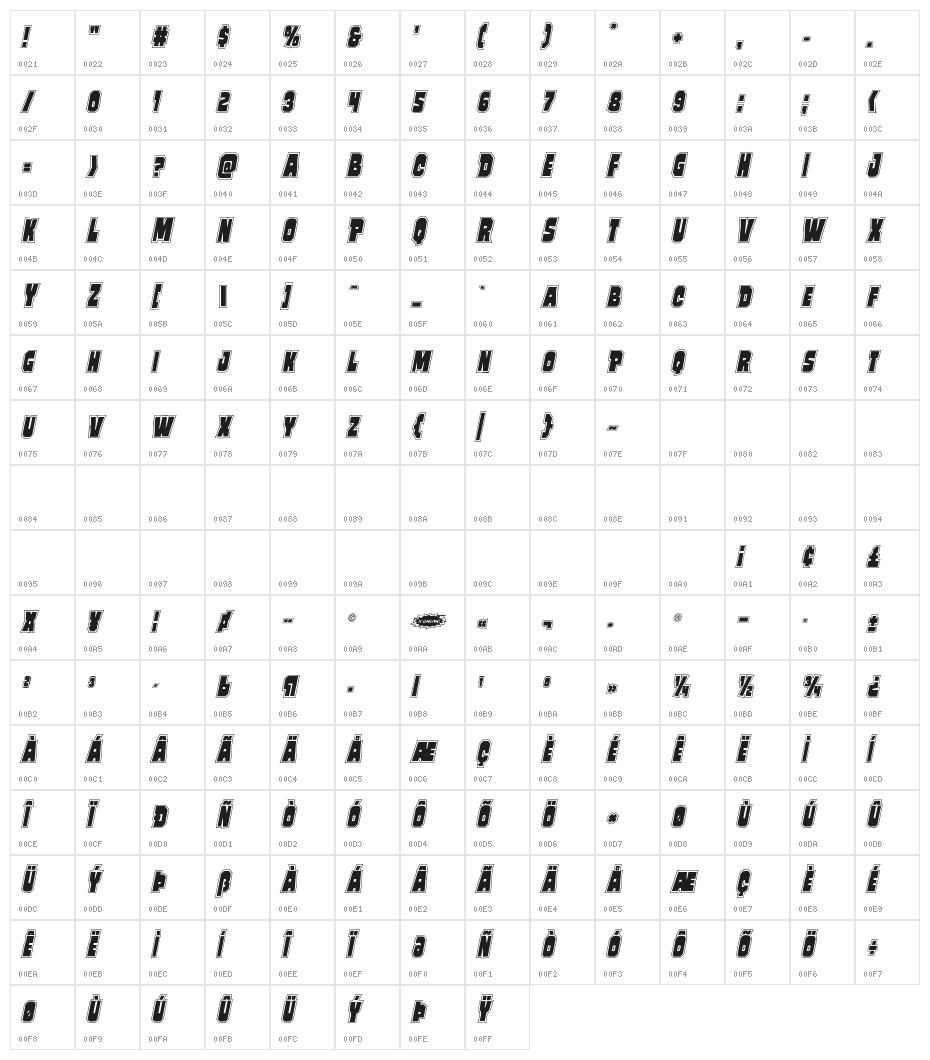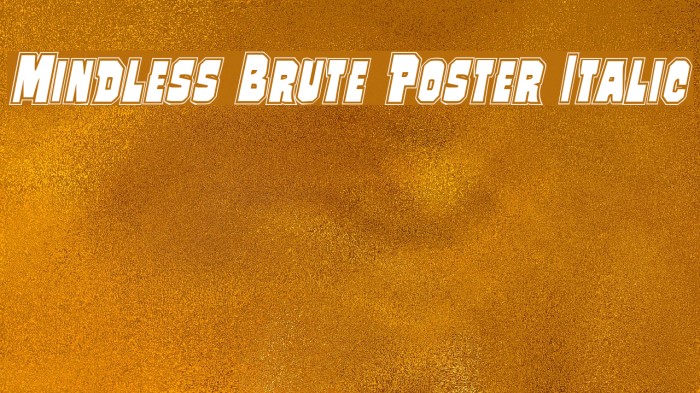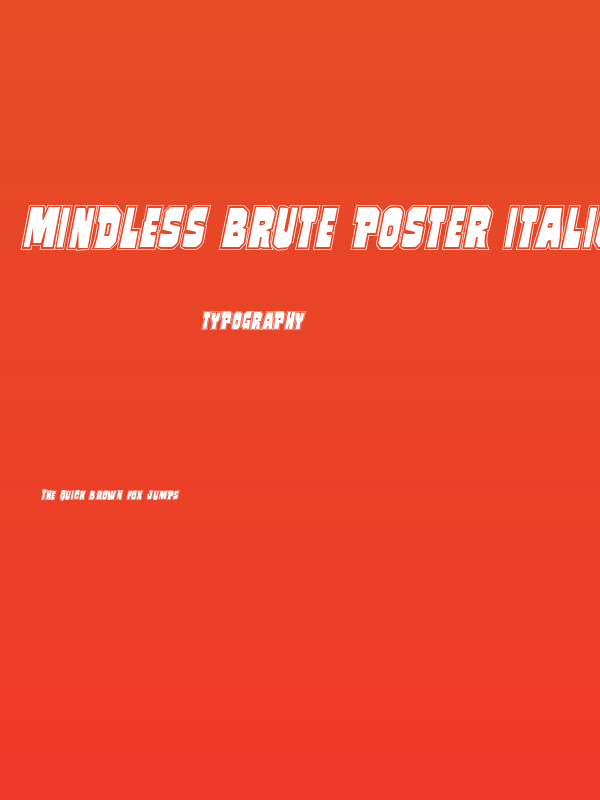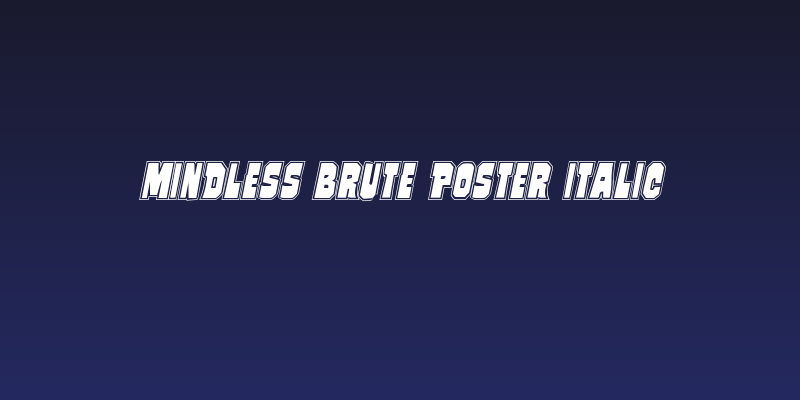
Mindless Brute Poster Italic Font
Mindless Brute Poster Italic Description
This font features a bold, dynamic style with a strong presence, characterized by thick, blocky letters that are slightly italicized. The bold strokes and sharp angles give it a powerful and assertive look, making it ideal for attention-grabbing headlines or impactful poster designs. The letters are outlined, adding depth and a three-dimensional effect, which enhances its visual appeal. The numbers and special characters maintain the same bold and italicized style, ensuring consistency across all elements. The overall design is modern and edgy, suitable for projects that require a strong visual statement.
| Proposed Projects | Ideal for posters, headlines, sports branding, and any design needing a bold statement. |